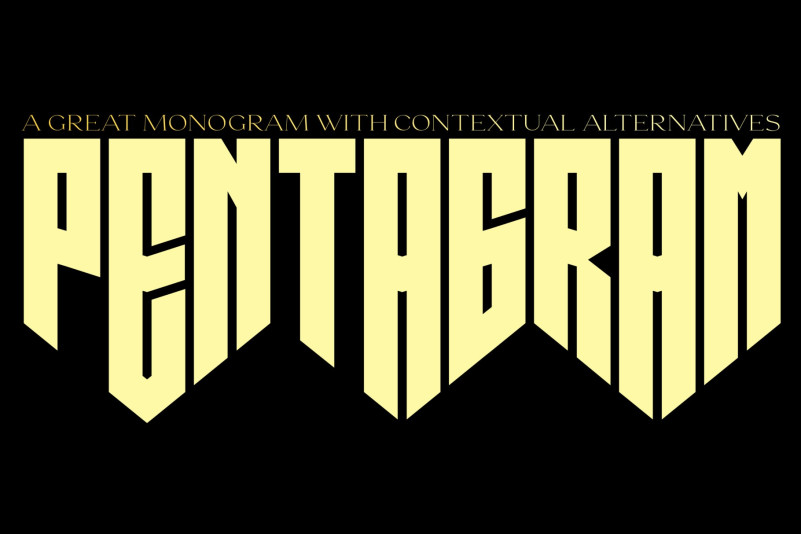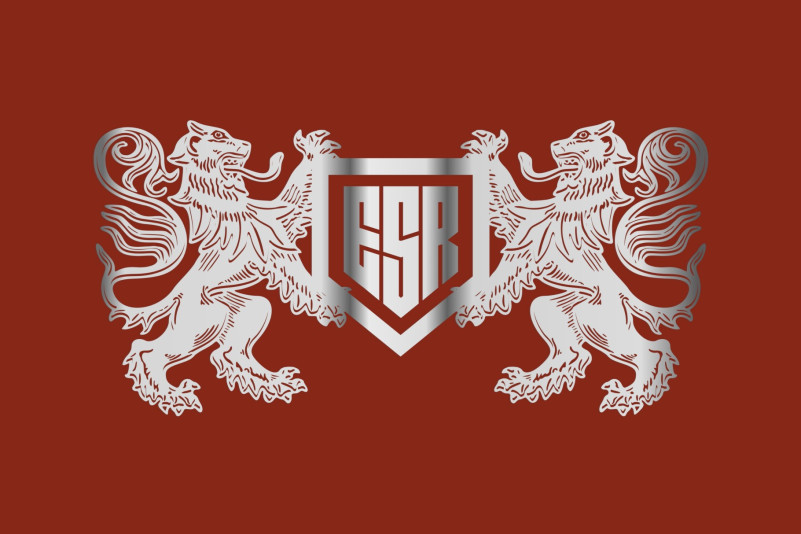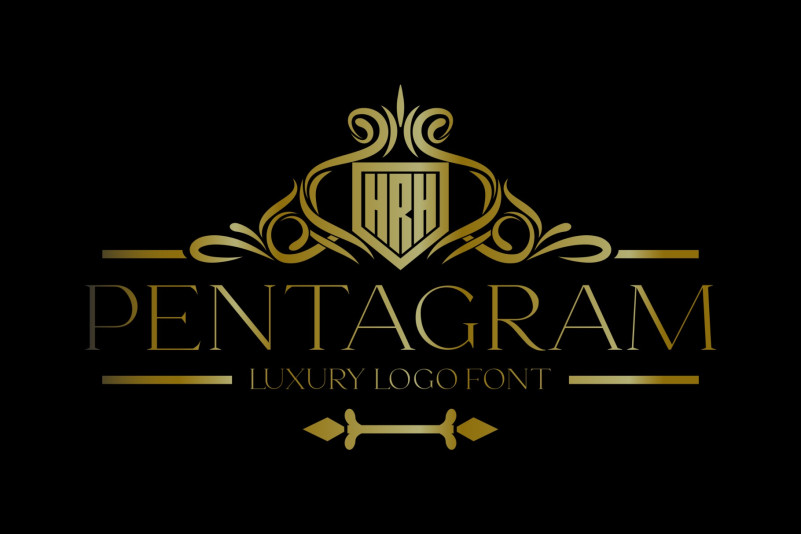
Pentagram Font
Pentagram Display Font is a monogram three-letter font with OpenType magic that can adjust to front and back letters, there are 10 frame variations that you can access at numbers 0-9 how to activate it simply by adding a number in front of your initials, typing something (0ABC – 9ABC) it will automatically compose . you can use it on any Logo project it is perfect to add to your collection.